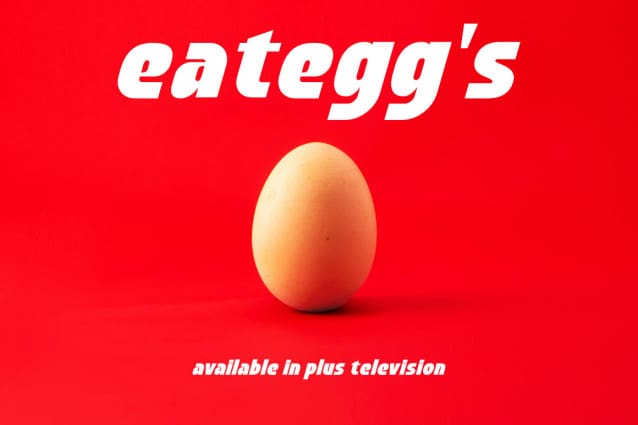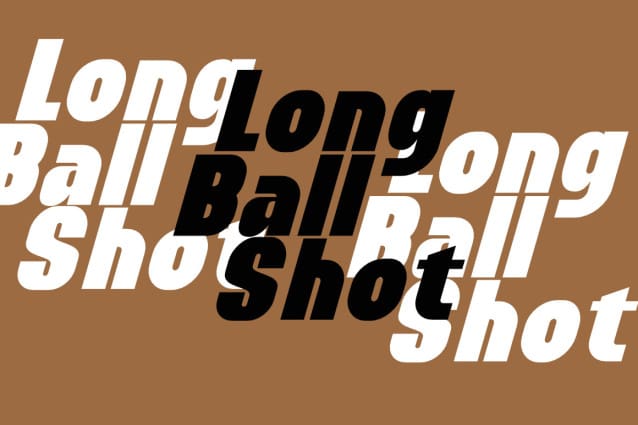
Creatball Italic Font
Creatball Italic Font, It would be a perfect choice to design posters, affiches, logos, t-shirt and magazine prints, eye-pleasing typographic designs and more.